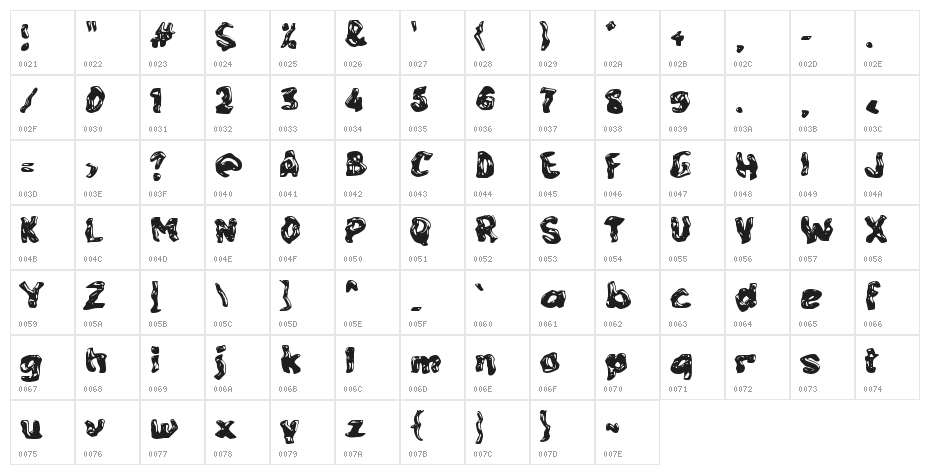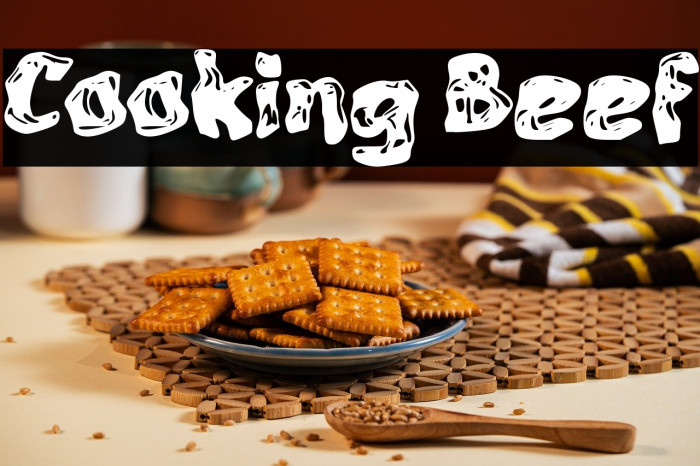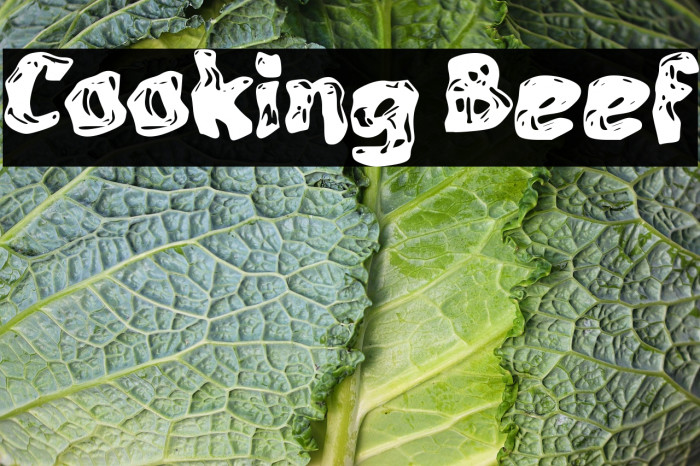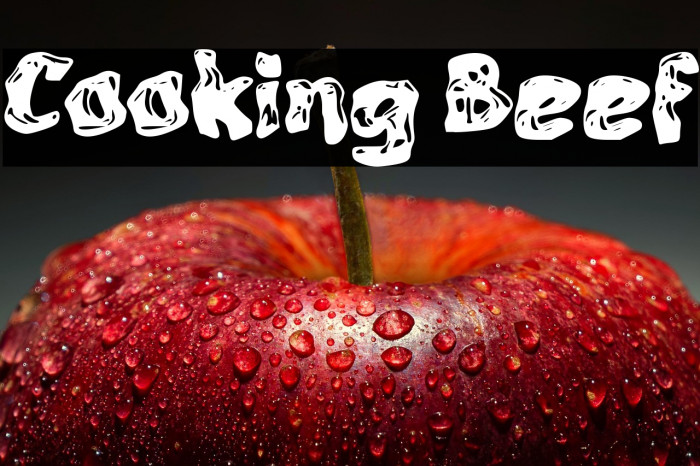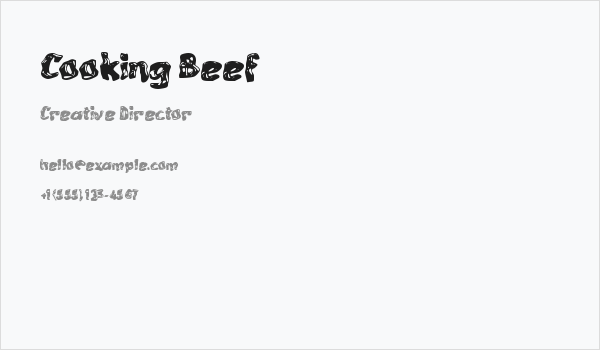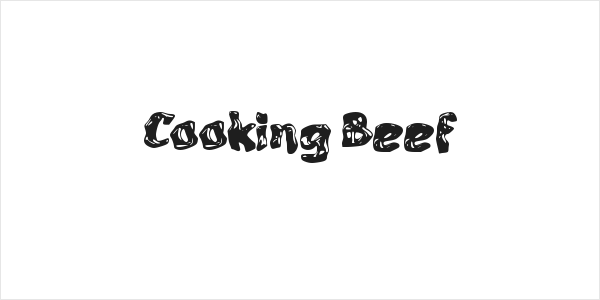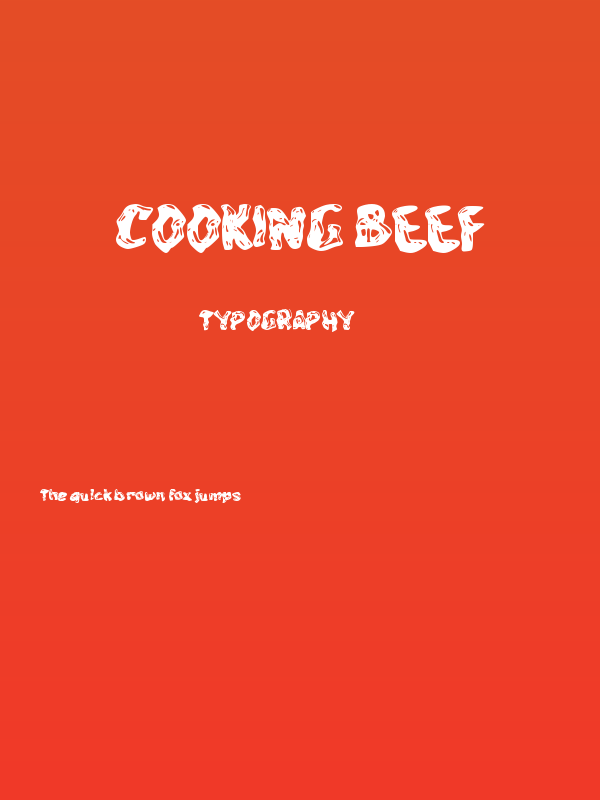
Cooking Beef Font
Cooking Beef Description
This font features a bold and playful style, with each character appearing as if it is melting or dripping. The letters have a chunky, irregular form that gives them a unique, eye-catching appearance. The strokes are thick and uneven, adding to the whimsical and informal feel. This font is highly decorative, making it suitable for creative and fun projects. The characters are closely spaced, enhancing the compact and dynamic look. The overall design is reminiscent of a cartoonish or graffiti-like style, perfect for projects that require a bold statement.
| Proposed Projects | Ideal for posters, children's book covers, party invitations, and playful branding. |